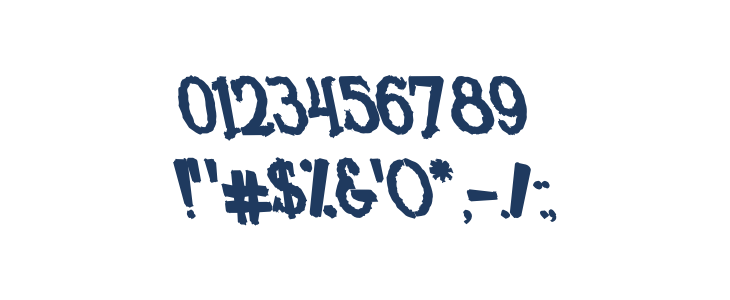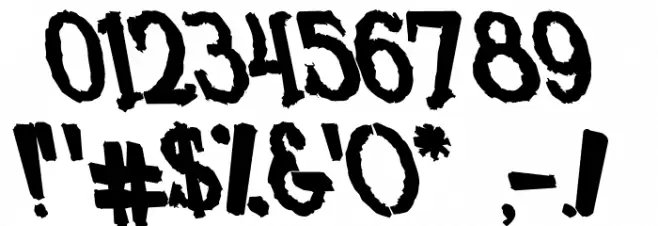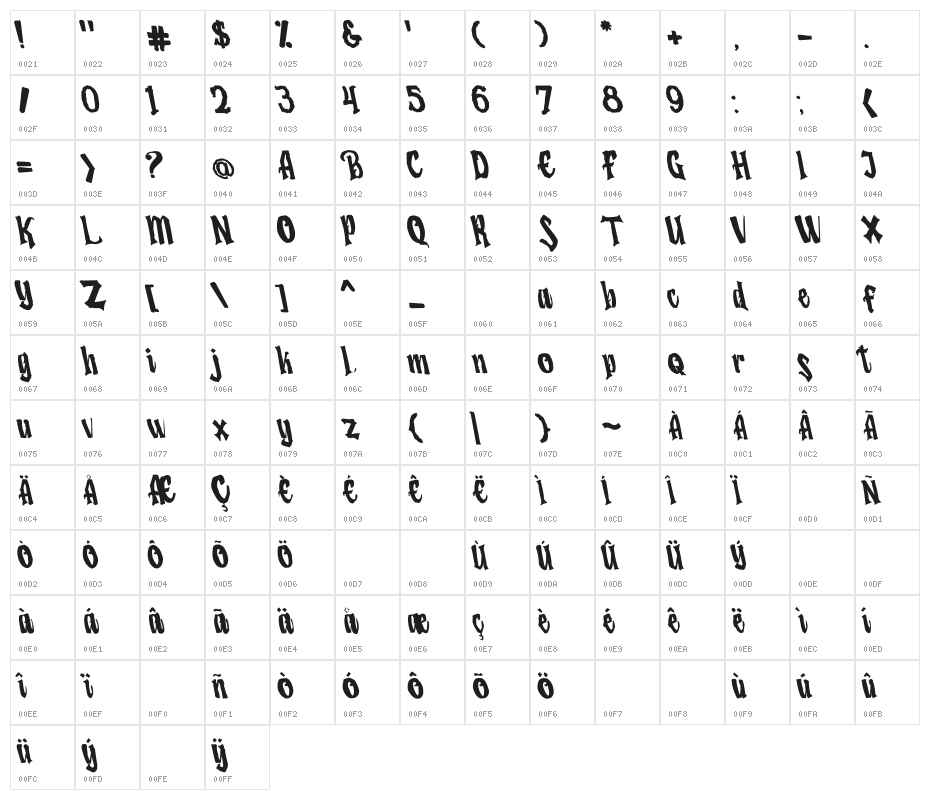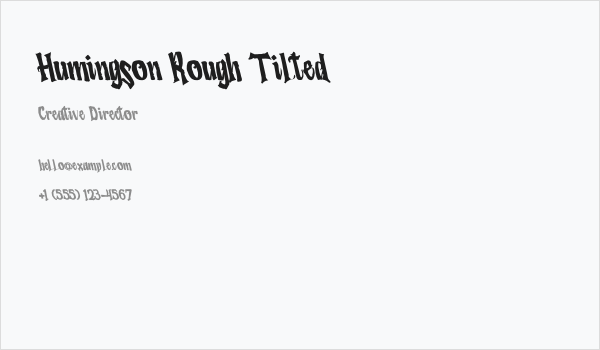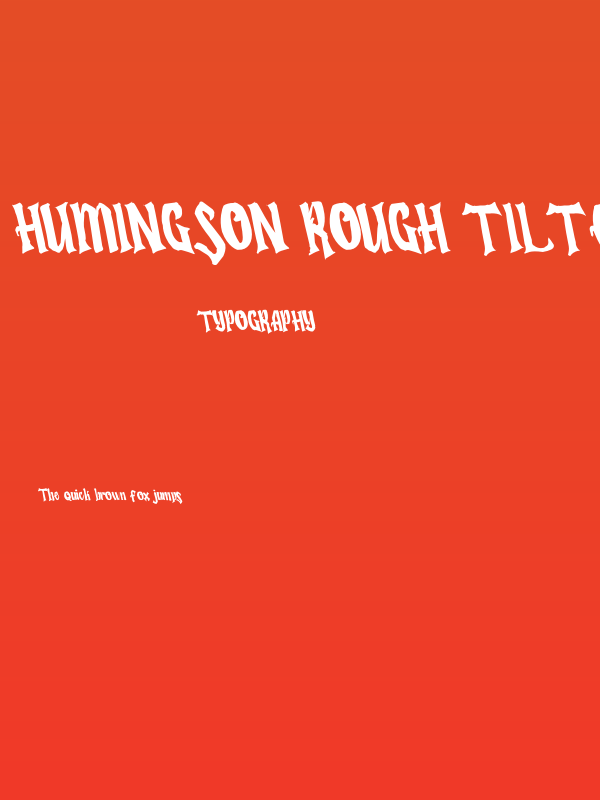
Humingson Rough Tilted Font
Humingson Rough Tilted Description
This font features a bold and dynamic style with a rough, textured appearance that gives it a hand-drawn, artistic feel. The letters are tilted, adding a sense of movement and energy. The uppercase and lowercase characters maintain a consistent design, with sharp edges and irregular strokes that enhance its rugged aesthetic. Numbers and special characters are crafted with the same attention to detail, ensuring a cohesive look across all elements. Its unique style makes it stand out, perfect for projects that require a strong visual impact.
| Proposed Projects | Ideal for posters, album covers, branding materials, and any design needing a bold, artistic touch. |